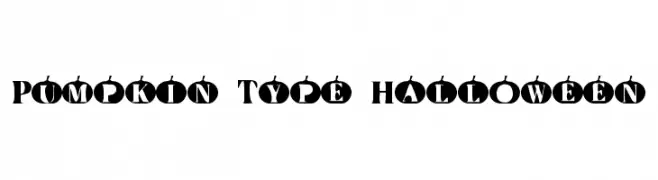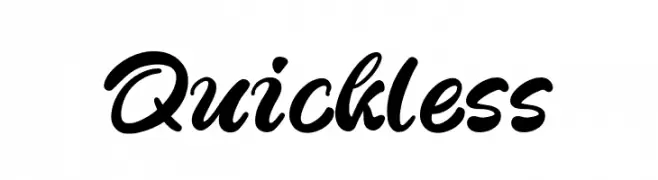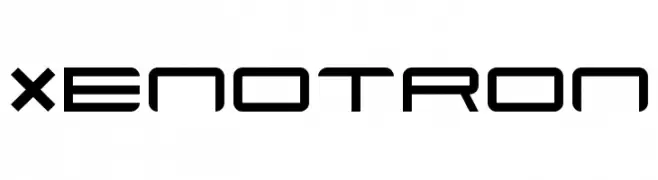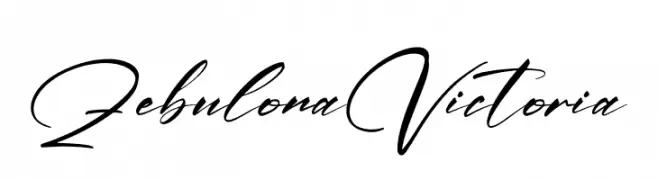
( Fonts by Si Panji )
A bold, jagged font with a spooky, playful Halloween theme.
( Fonts by creativetacos )
A playful, Halloween-themed font with a carved pumpkin style.
( Fonts by Khurasan )
A fluid and elegant handwritten script font with seamless connections.
A bold, flowing script font with elegant, cursive strokes and seamless connections.
( Fonts by Letterena Studios )
An elegant and flowing script font with intricate curves and seamless connections.
( Fonts by Micro Andi )
A graceful and fluid script font with seamless letter connections.
( Fonts by Scratchones )
A playful, festive font with a hand-drawn, decorative style.
( Font by http://home.luna.nl/~xino/ )
A futuristic, geometric font with clean lines and angular shapes.